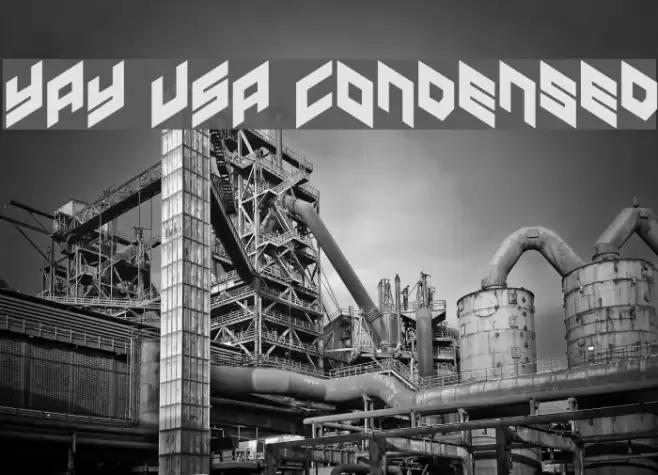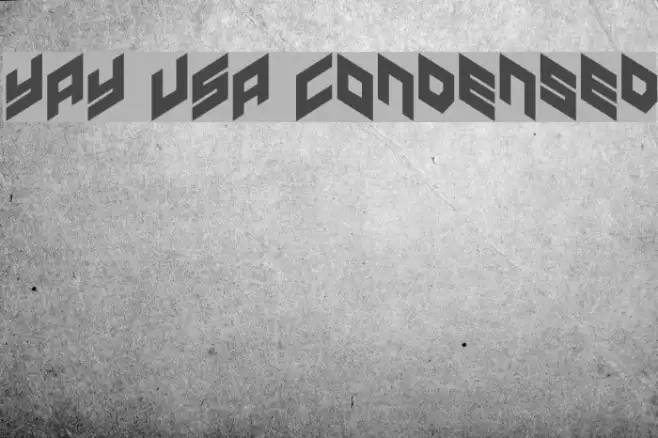
YAY USA Condensed Font
YAY USA Condensed Description
This font features a bold, angular design with a strong geometric influence. The characters are sharply defined, with a condensed structure that gives a sense of urgency and modernity. Each letter is crafted with precision, showcasing a dynamic and edgy style. The font's unique slant and sharp edges make it stand out, offering a futuristic and industrial feel. It's particularly suitable for projects that require a bold statement, such as branding, posters, or any design that aims to capture attention quickly. The consistent weight across characters ensures readability while maintaining its distinctive appearance.
A bold, angular, and condensed font with a geometric and modern style from Futuristic fonts.
- Proposed Projects: Ideal for branding, posters, headlines, and any design needing a bold, attention-grabbing typeface.
- Character Spacing: Tight